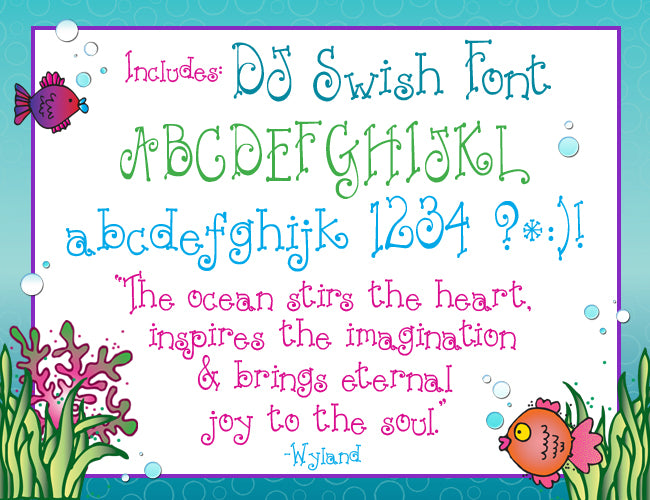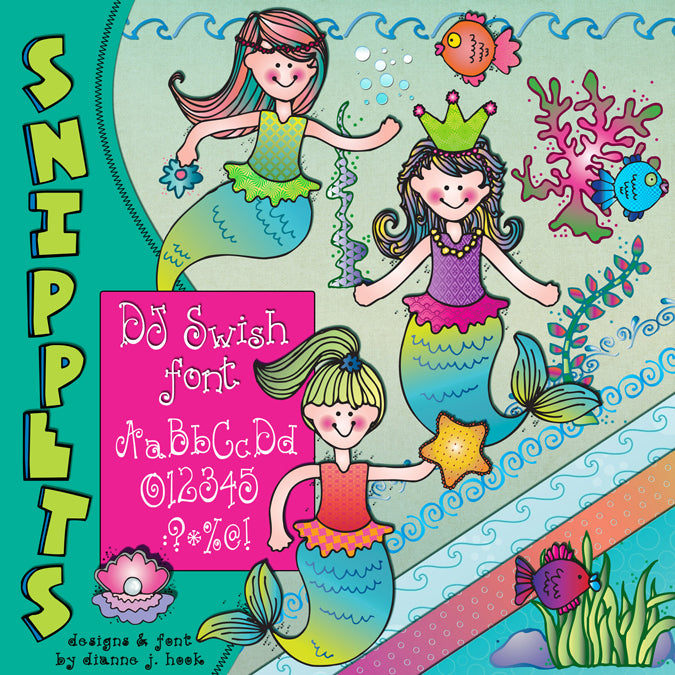
Playful mermaid clip art, under the sea printables and a swirly font by DJ Inkers
Mermaid Clip Art Snippets, Font and Printables Kit
We've gone under the sea with our Snippets Mermaids collection. This set is a real catch, full of fish and magical mermaids... sure to make a splash on your creations!  Set includes:
• Our fun 'DJ Swish' font
It's cute, completely coordinated, & easy to use... so you can get right to the fun part!  Perfect for summer celebrations & newsletters, seaside travel, or ocean studies & projects... at home, school or vacation.